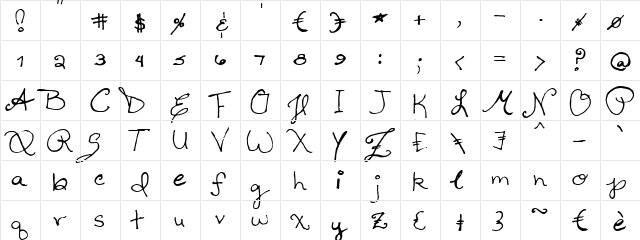
Traci Hand Font Preview
Traci Hand
Traci Hand Font Details
| Style | Hand |
| Foundry | Font Garden |
| Designer | Ellinor Rapp |
Design Context for Traci Typeface
Traci brings a calligraphic fluidity to the page — its connecting strokes and expressive curves give it an unmistakably human quality.